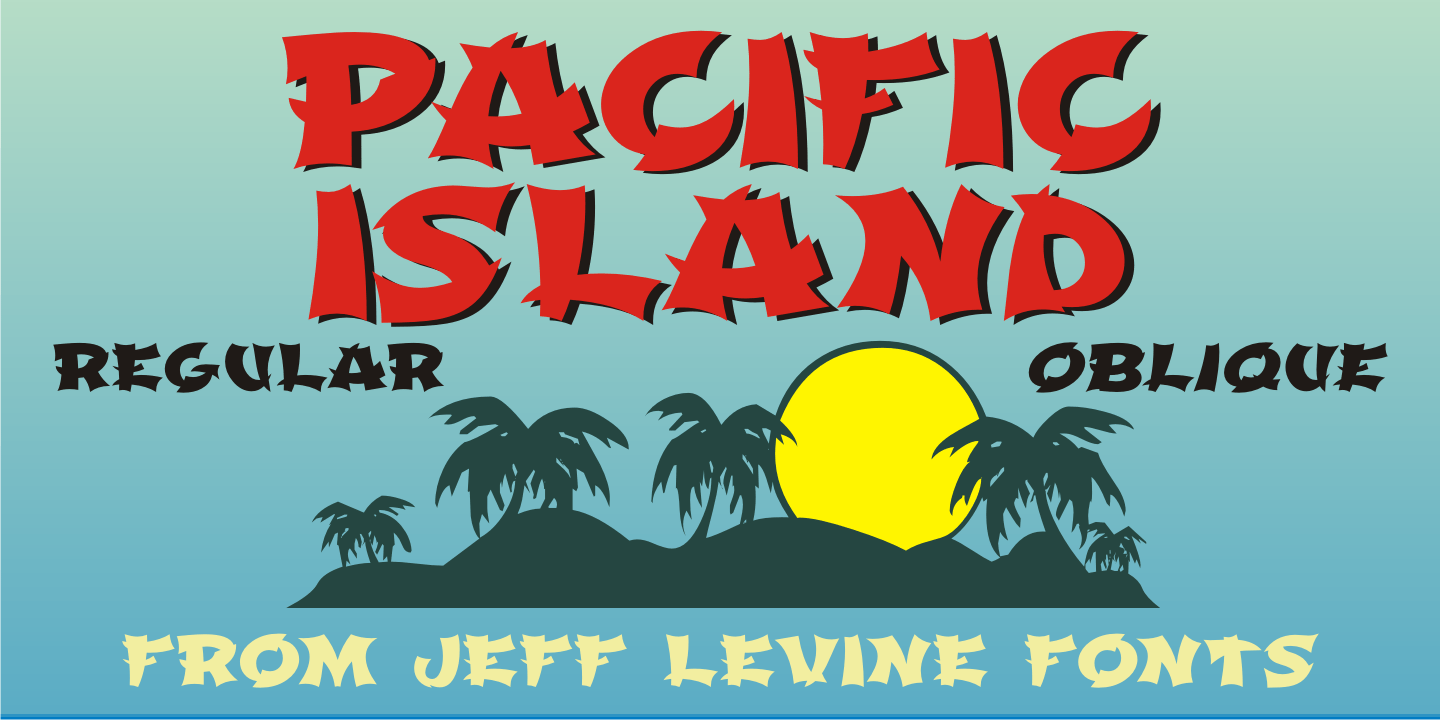
Pacific Island
Lettering on the sheet music cover for the title song from the 1957 Marlon Brando movie 'Sayonara” was the model for Pacific Island JNL.
The design has an Asiatic influence, but also reflects a bit of show card lettering as well. Available in both regular and oblique versions.